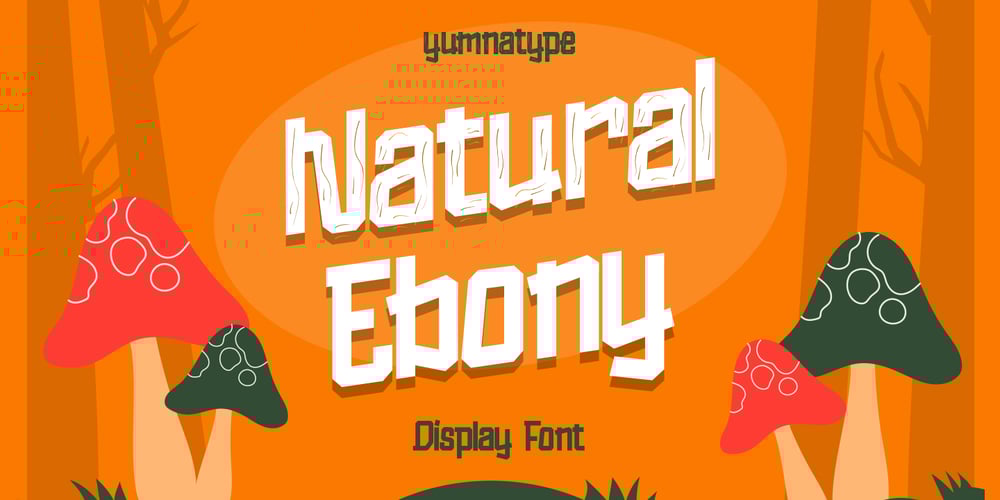
Natural Ebony
Natural Ebony font
Natural Ebony Font Family was designed by Donis Miftahudin and published by Yumna Type. Natural Ebony contains 2 styles and family package options. Natural Ebony is a captivating display font that brings a playful and organic feel to your designs, available in both regular and solid versions. With its unique design and quite thick weight, this font adds a touch of natural charm and creativity to any project.The regular version of Natural Ebony features delightful details that resemble wooden sticks, giving each letter an earthy, handcrafted appearance. These intricate details add depth and texture, making the font stand out with its rustic and whimsical style.The solid version of Natural Ebony retains the playful essence of the regular version but offers a cleaner, more streamlined look. With its playful design, quite thick weight, and unique wooden stick details in the regular style, Natural Ebony is a versatile and adaptable font. In addition, enjoy the features here.Features: Multilingual Supports PUA Encoded Numerals and Punctuations Natural Ebony fits in headlines, logos, posters, flyers, branding materials, print media, editorial layouts, and many more designs. Find out more ways to use this font by taking a look at the font preview.Thanks for purchasing our fonts. Hopefully, you have a great time using our font. Feel free to contact us anytime for further information or when you have trouble with the font. Thanks a lot and happy designing.